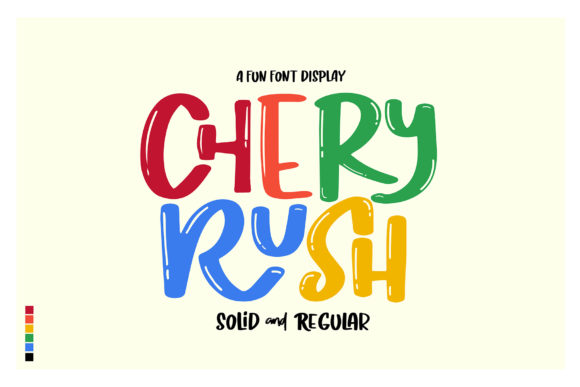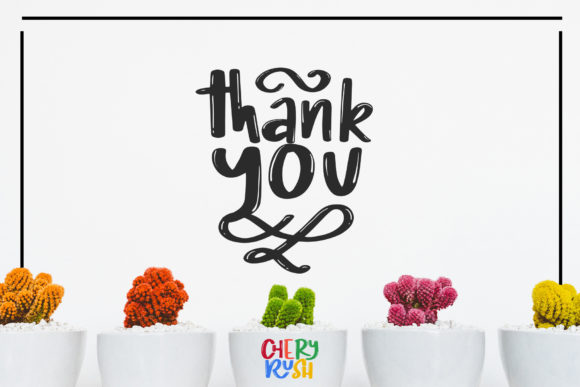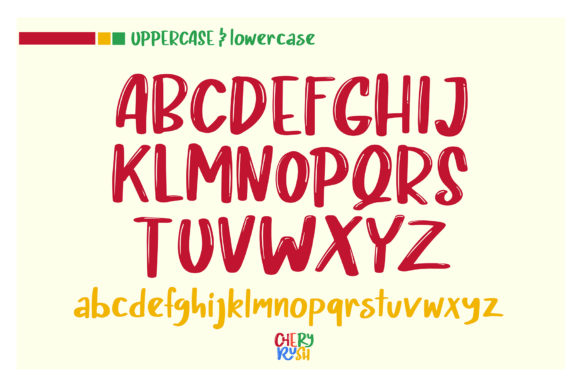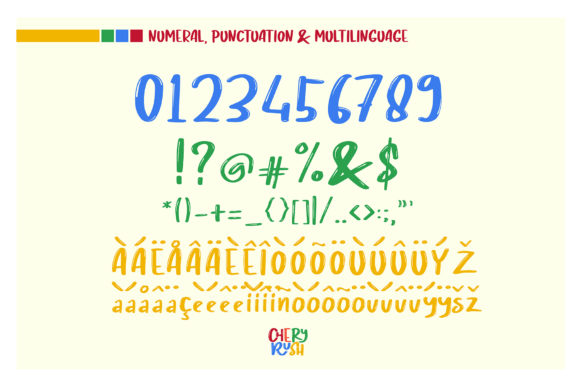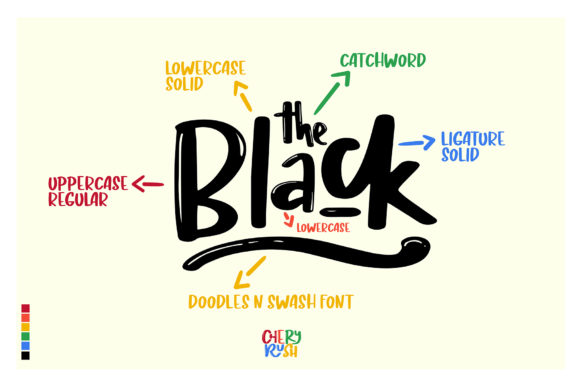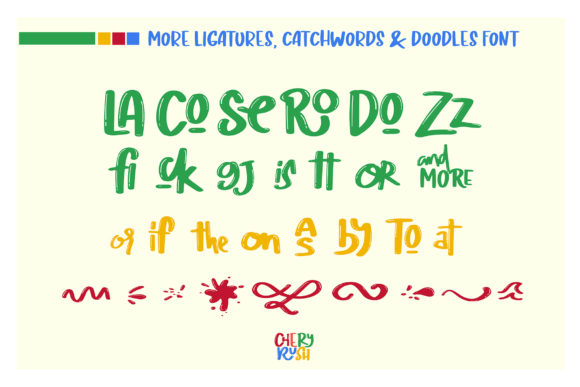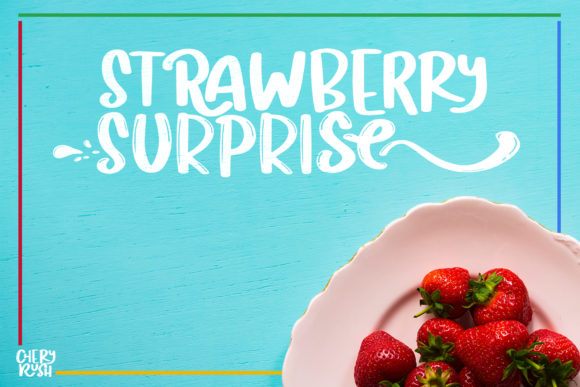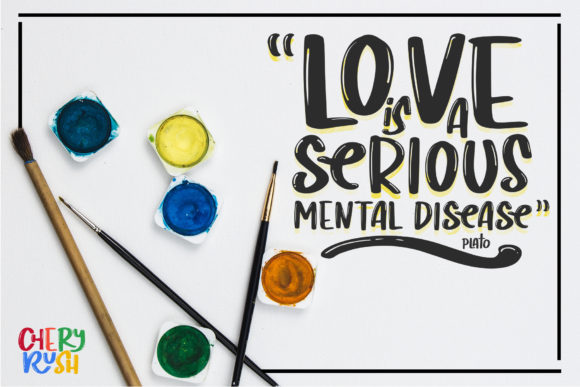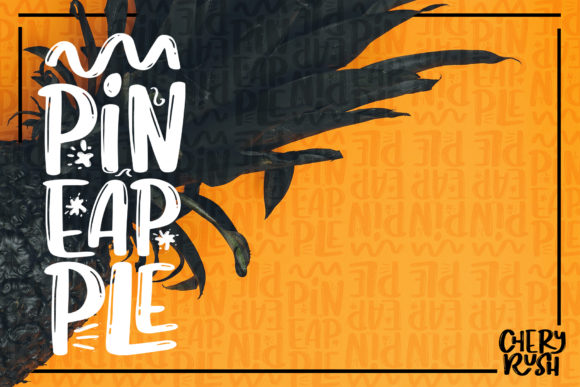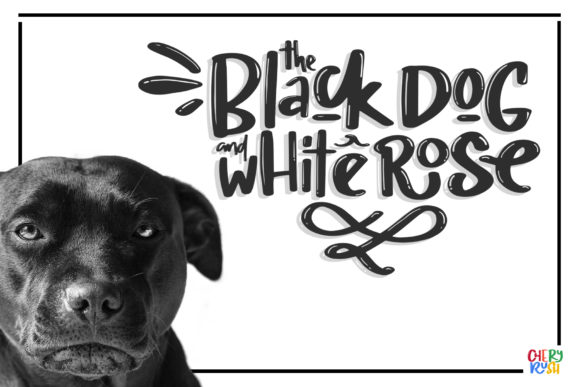
Chery Rush Font
About Chery Rush Font
The Chery Rush is a fun and cute script font. This mixed case font comes with a lot of designing possibilities. It’s perfect for creating playful designs!